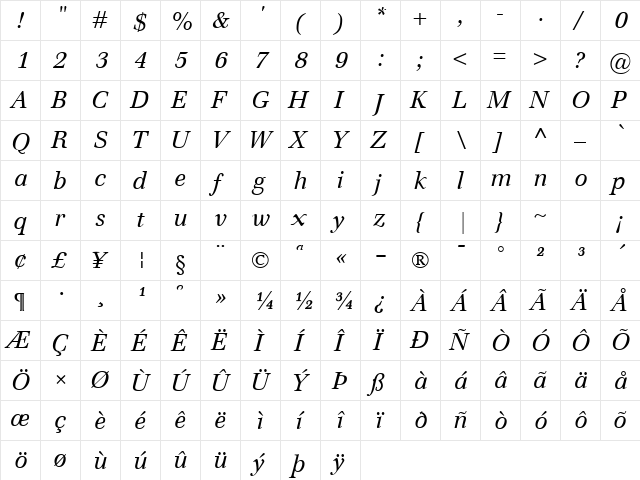
Emona Italic
Design Context for Emona Typeface
Emona takes a measured approach to typography — its balanced proportions and neutral character make it a reliable workhorse for both digital and print work. Its italic angle brings a sense of urgency and motion to the letterforms.
Pro Tip: Try Emona for annotation and caption copy alongside an upright companion — the contrast in angle creates a dynamic but ordered typographic system.